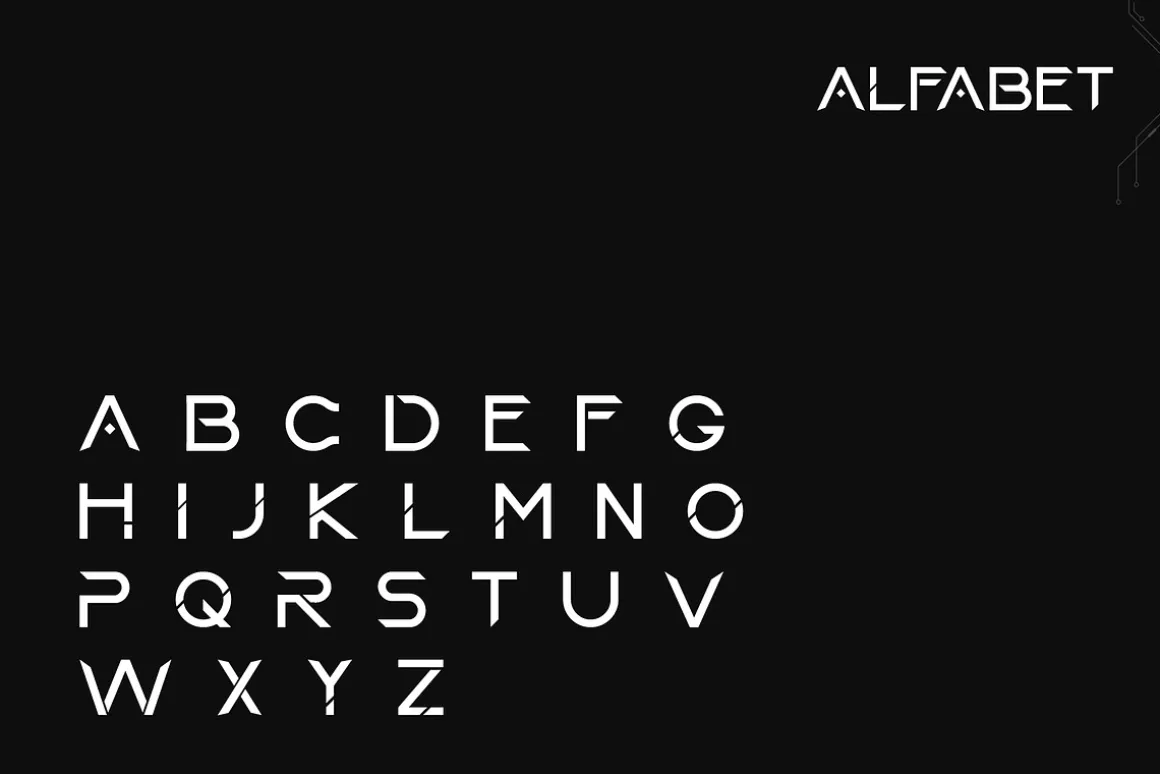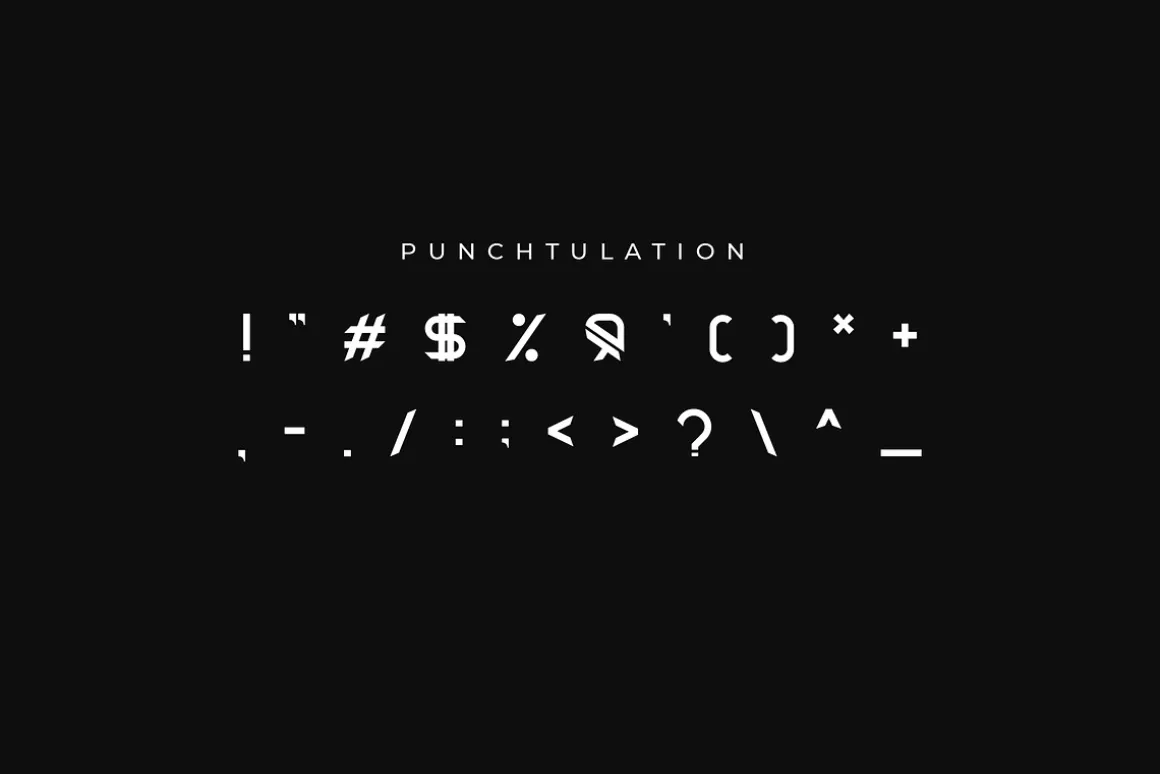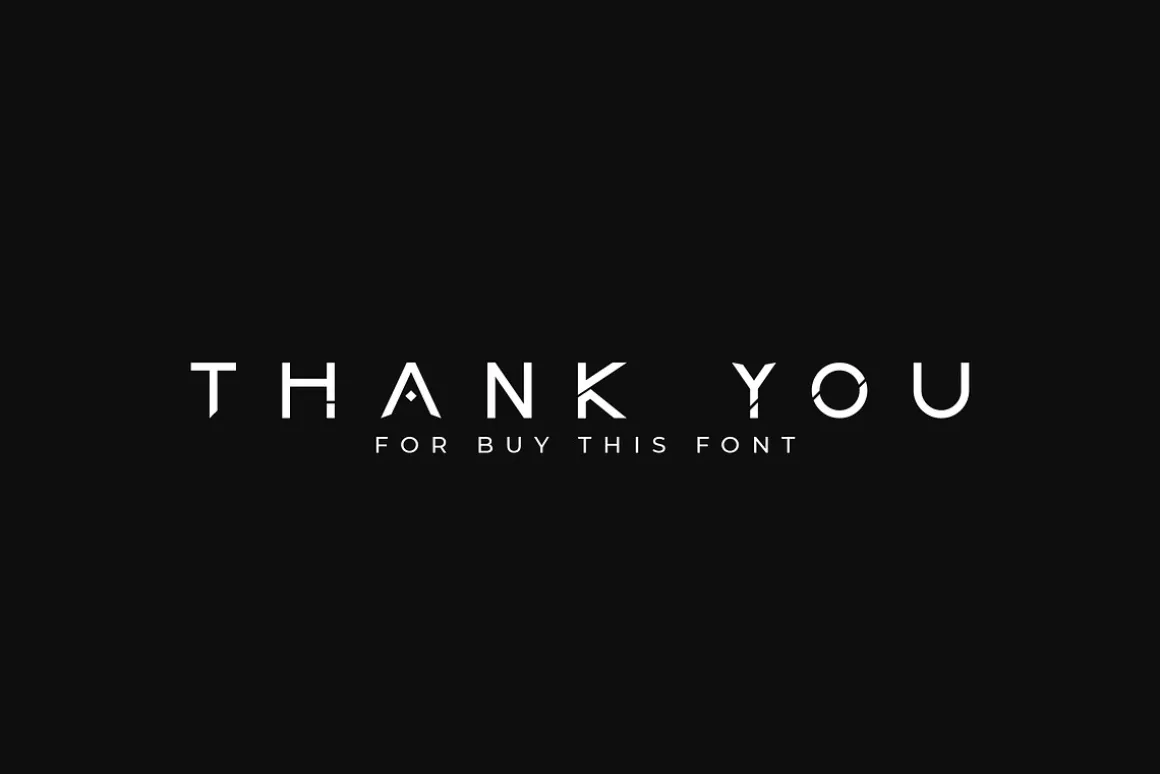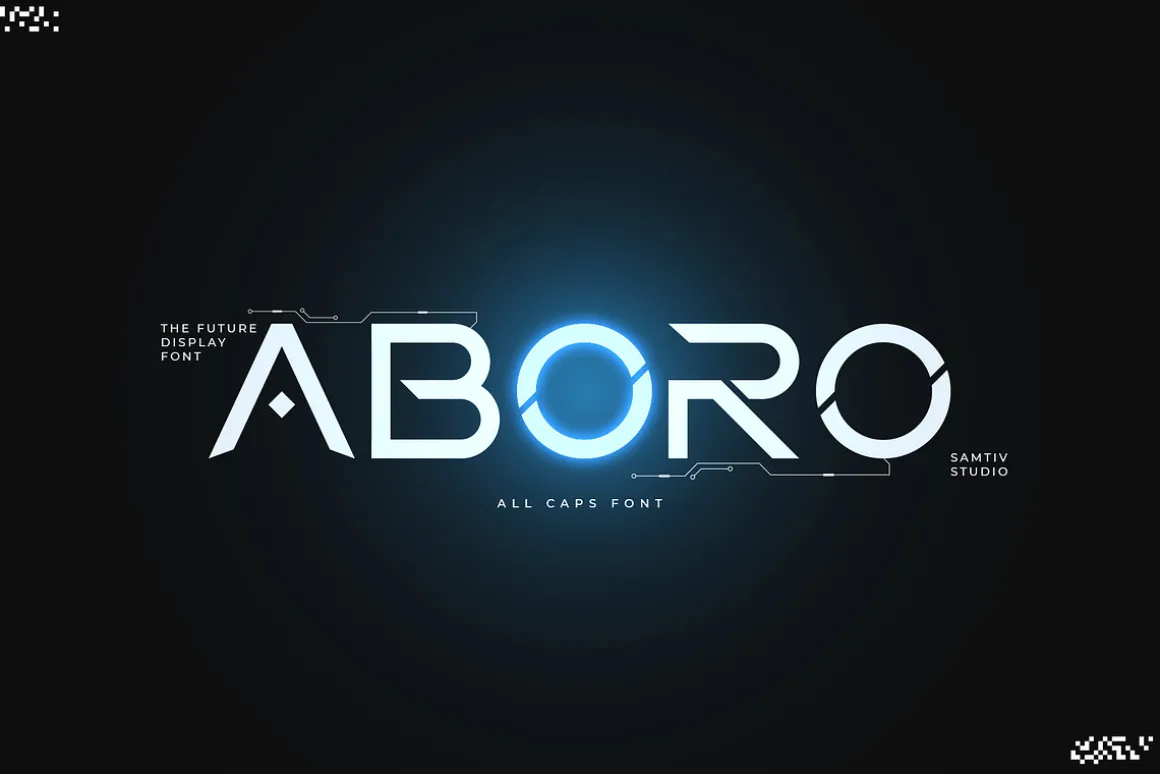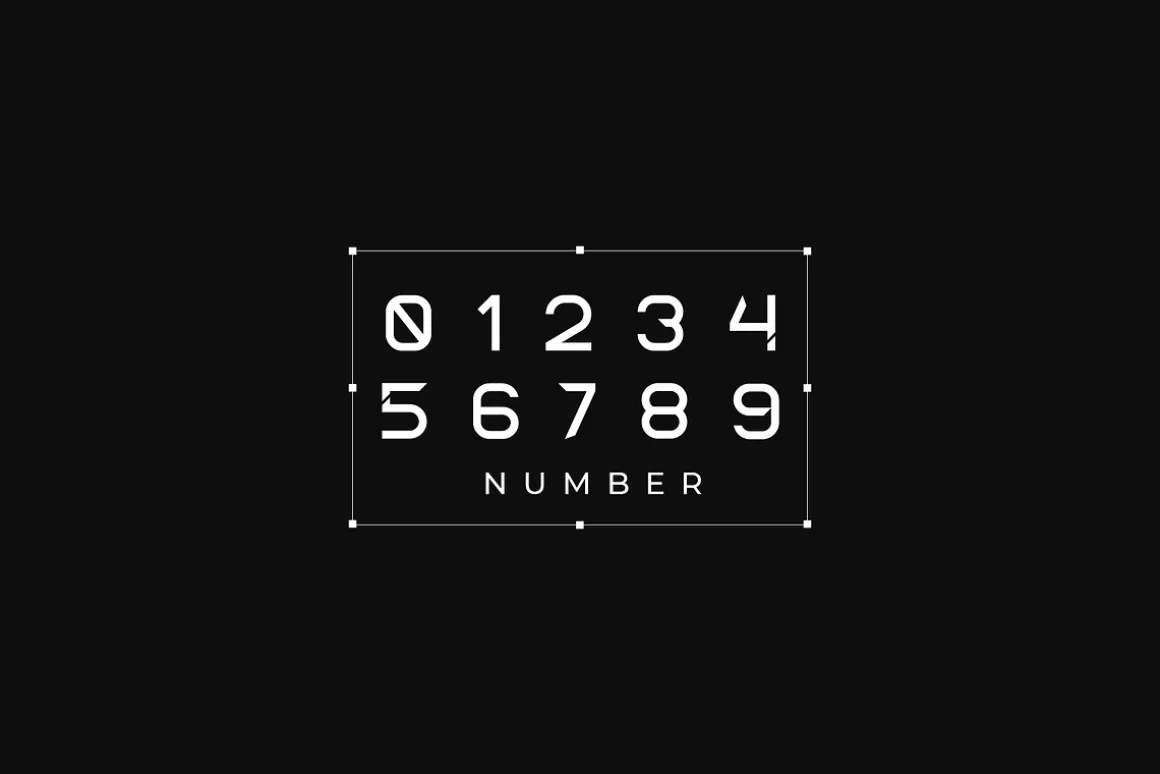
INTRODUCINGAboro is a futuristic design and space display font. This typeface is clean, modern, versatile, and it will give the best results for displays, branding, or headlines. This future-inspired font will feel timeless with a sci-fi, cyberpunk, or robotic theme. Grab it right away and use it on various creations.